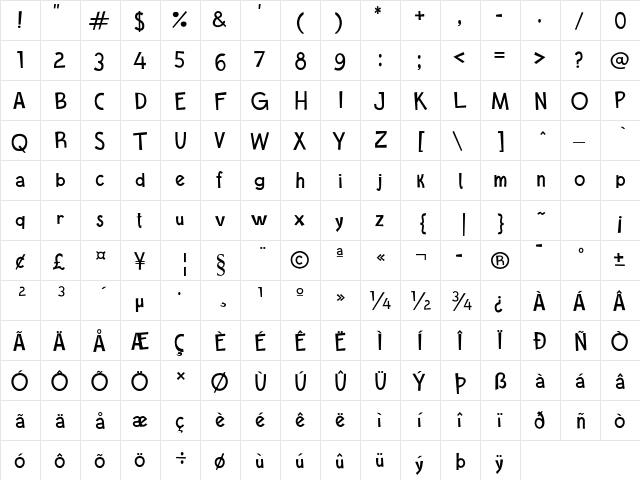
Cartoon Toy Turbo Regular
Design Context for Cartoon Toy Turbo Typeface
Cartoon Toy Turbo trades formality for fun, with bouncy, characterful letterforms that bring warmth and energy to any project.
Font Pairing: Pairs well with a rounded or humanist sans for body copy, maintaining the friendly tone without relying on Cartoon Toy Turbo to carry extended reading.
Pro Tip: Avoid using Cartoon Toy Turbo for long passages of text — it works best for headlines, labels, and short calls to action.